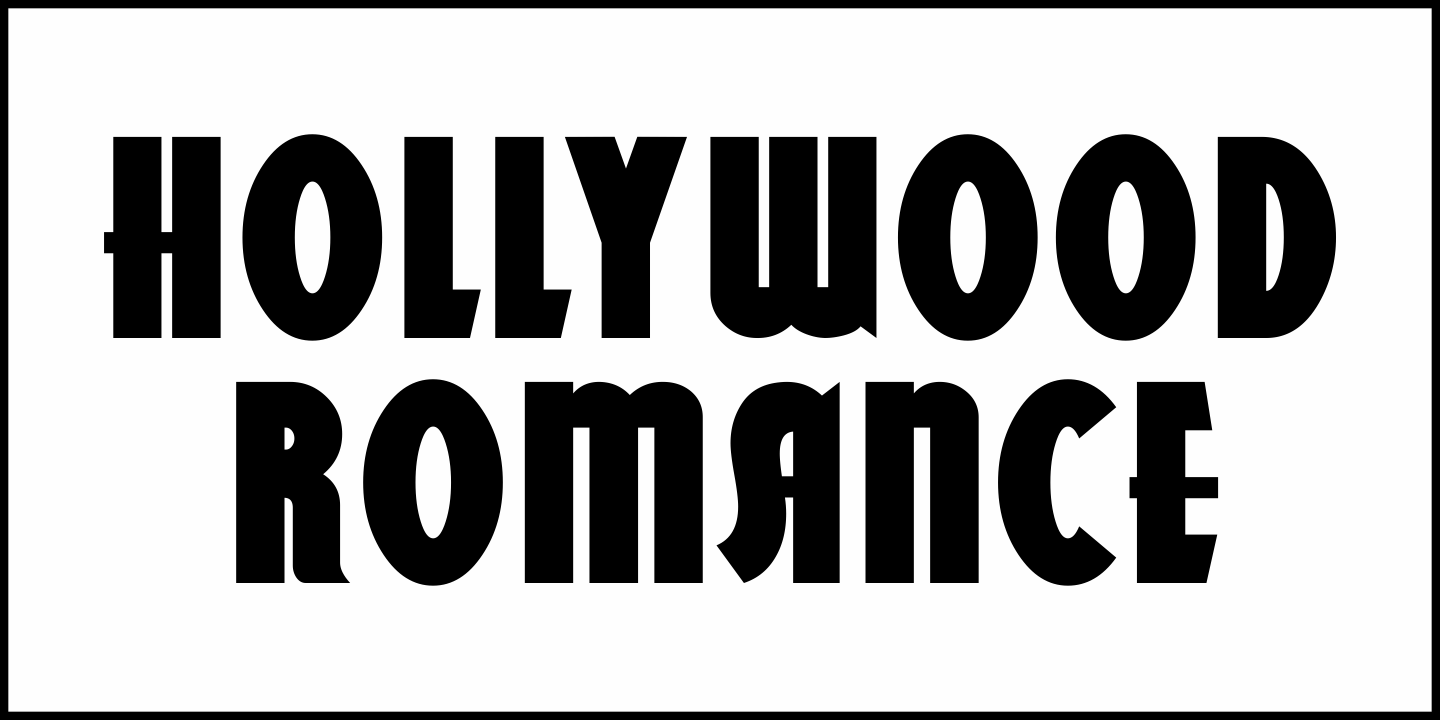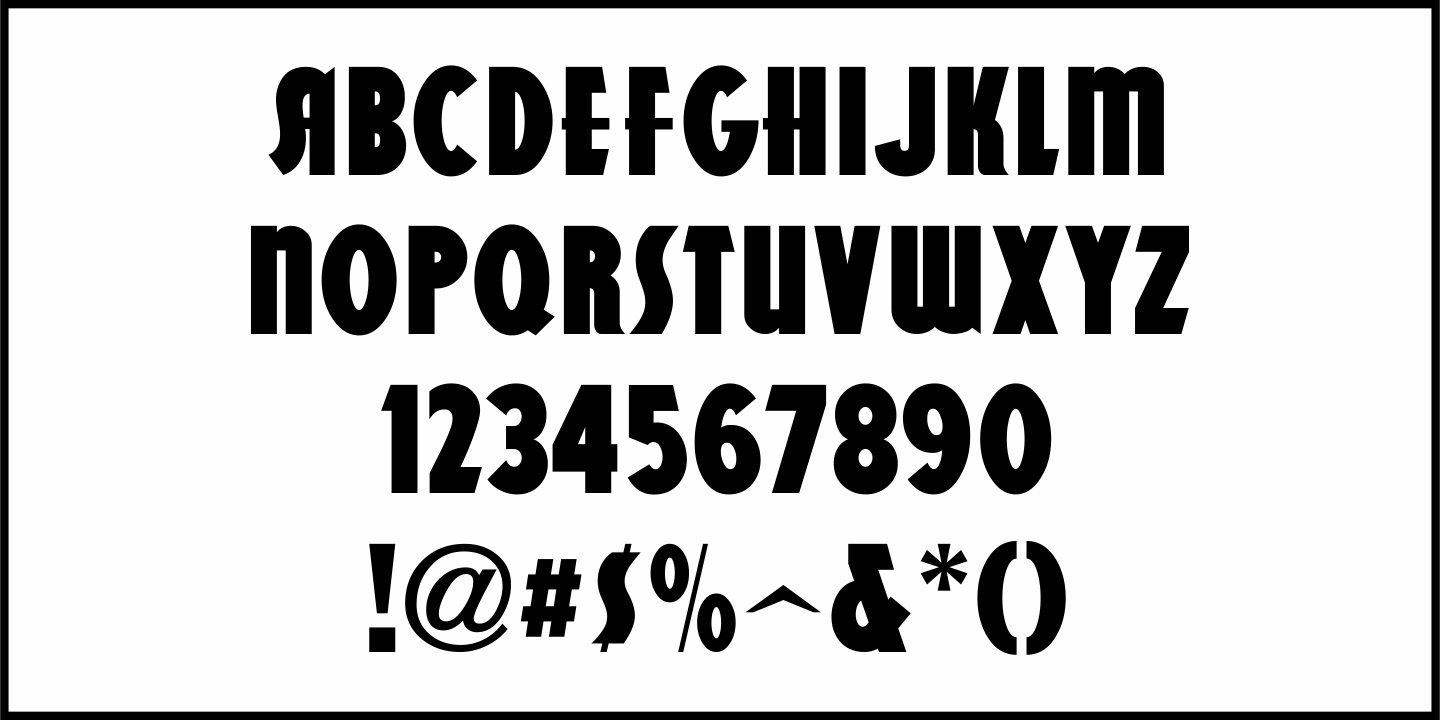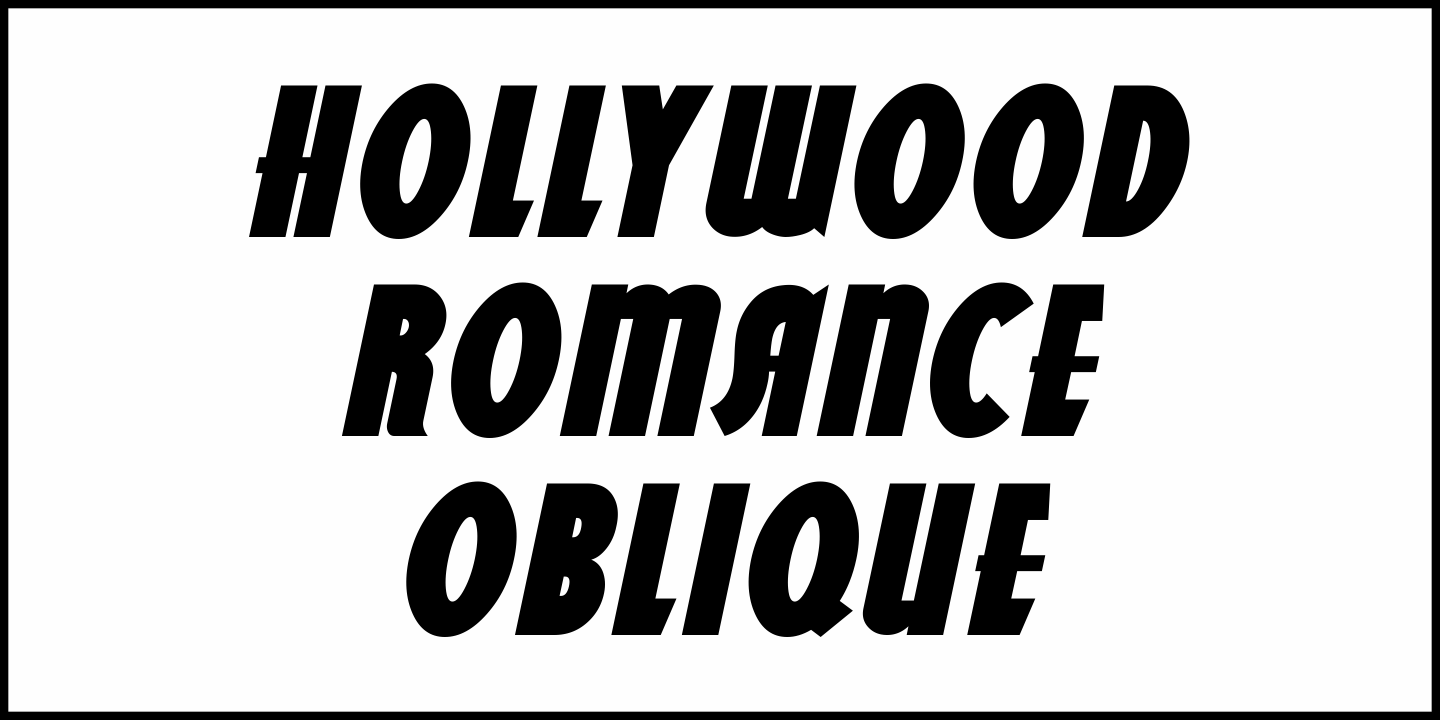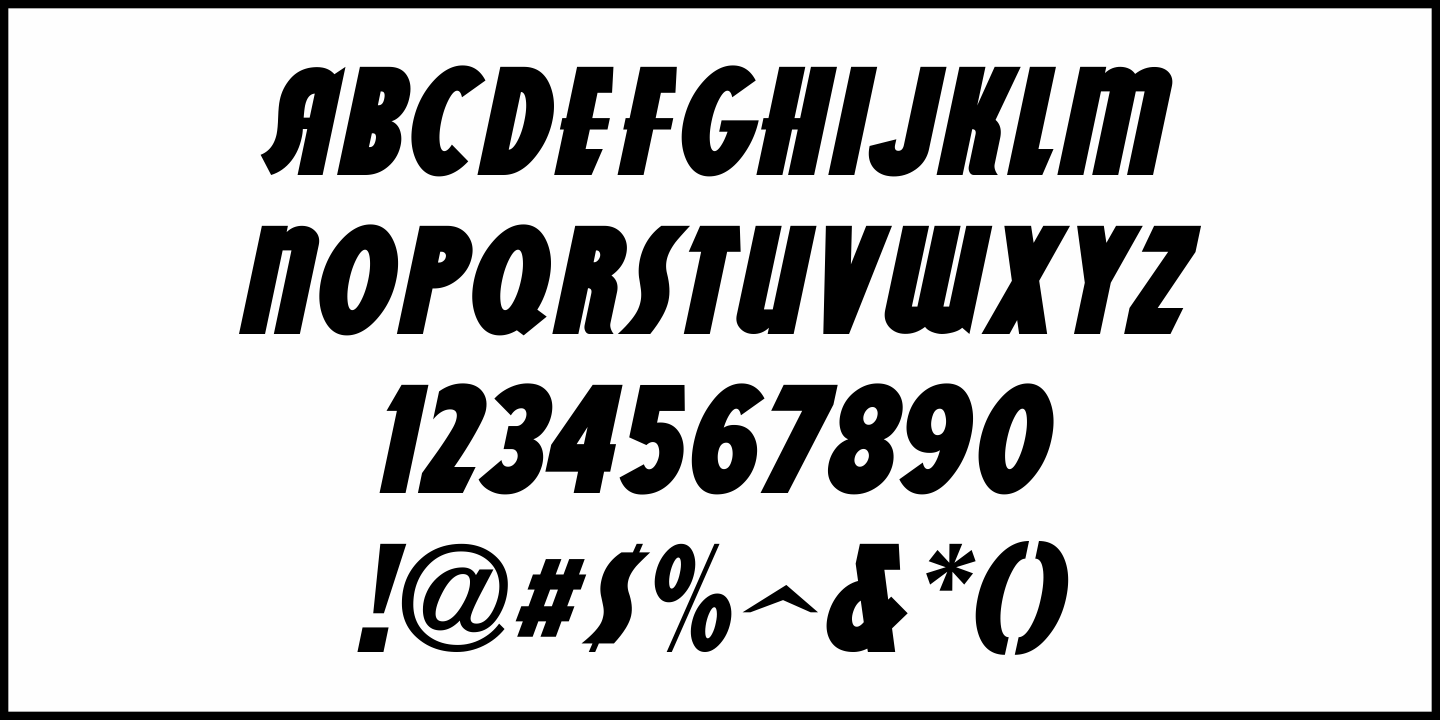
Hollywood Romance
An ad in the May 2, 1934 edition of The Film Daily for the movie "20 Million Sweethearts" featured hand lettering in a condensed Art Deco sans serif design.
This is now available as Hollywood Romance JNL, in both regular and oblique versions.
Hollywood Romance JNL Regular by Jeff Levine Fonts